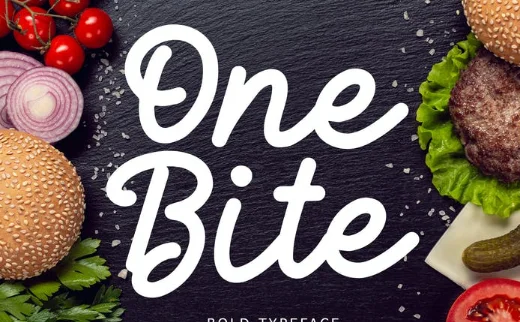
One Bite Bold Calligraphy Font
One Bite Bold Calligraphy Font is perfect for wedding invitations, romantic greeting cards, love quotes, handwritten logos, feminine branding, social media posts, book covers, magazine headlines, restaurant menus, beauty product packaging, fashion labels, and artistic posters.
What makes One Bite Bold Calligraphy Font exciting is its bold, expressive strokes that capture the authentic beauty of hand-lettered calligraphy. This stunning typeface combines traditional calligraphic elegance with contemporary boldness, creating dramatic visual impact in every application. The font's flowing curves and confident letterforms bring warmth and personality to any design project. Its organic texture and natural variations make each word feel personally crafted, while the bold weight ensures excellent readability and strong presence across various design contexts.
The One Bite Bold Calligraphy Font family features distinctive uppercase and lowercase letters, along with elegant swashes, stylistic alternates, and decorative ligatures. The character set includes beautiful flourishes and ornamental elements that enhance the calligraphic authenticity and provide designers with creative flexibility.
Whether you're designing luxury brand materials, romantic stationery, or artistic publications, One Bite Bold Calligraphy Font Free Download delivers the sophisticated elegance your projects deserve. This premium calligraphic typeface excels in both digital and print applications, making it an essential tool for designers seeking authentic hand-lettered aesthetics. The font's generous character spacing and carefully balanced proportions ensure optimal legibility while maintaining its artistic charm. Creative professionals appreciate its versatility in headers, logos, and decorative text elements. The extensive glyph collection supports multiple languages and special characters, expanding its usability for international design projects. When you incorporate this beautiful calligraphy font into your work, you're adding a touch of handcrafted elegance that resonates with audiences and elevates brand perception through sophisticated typography choices.